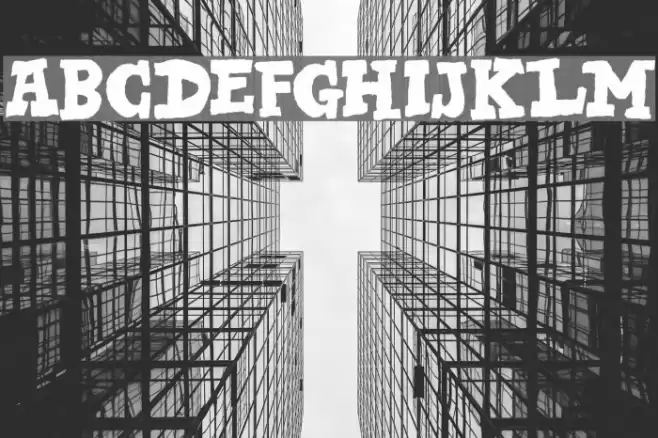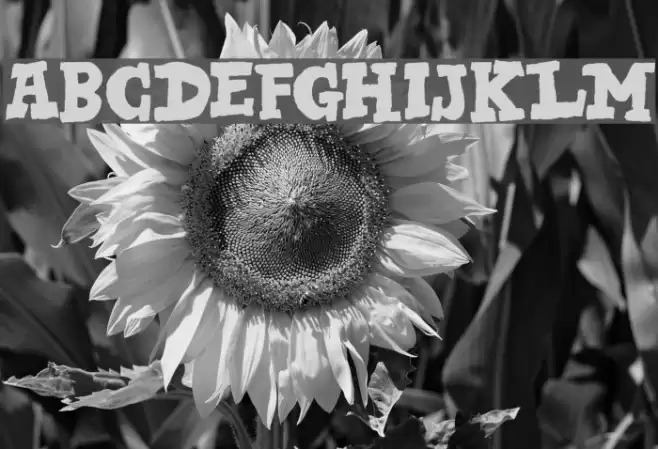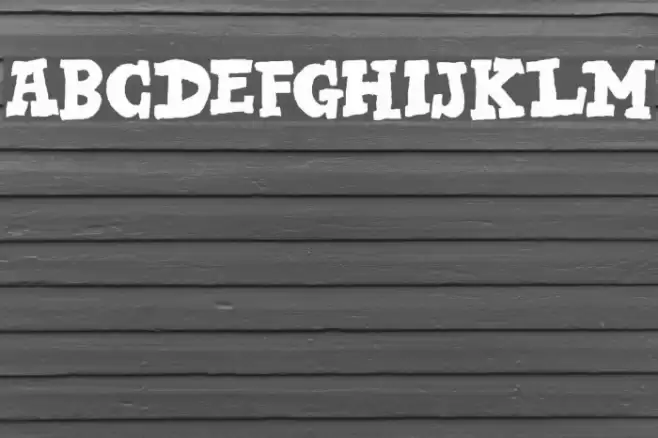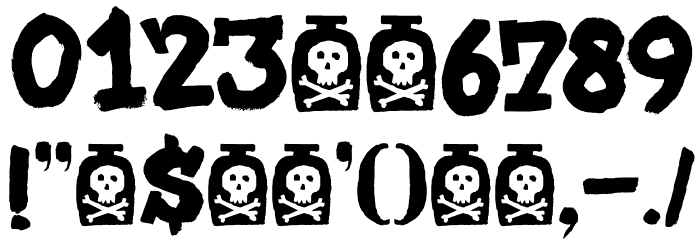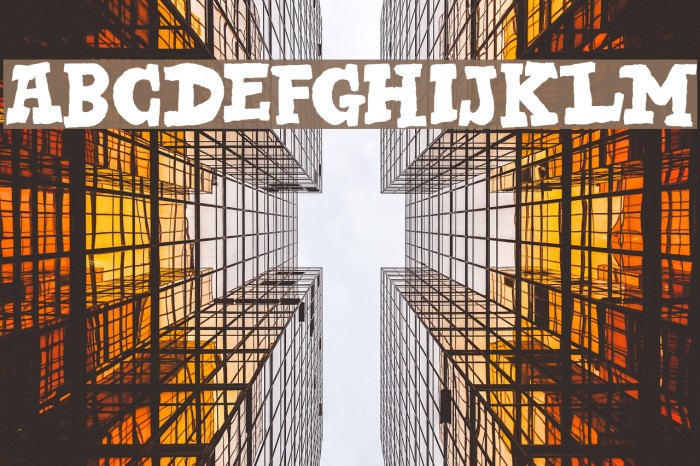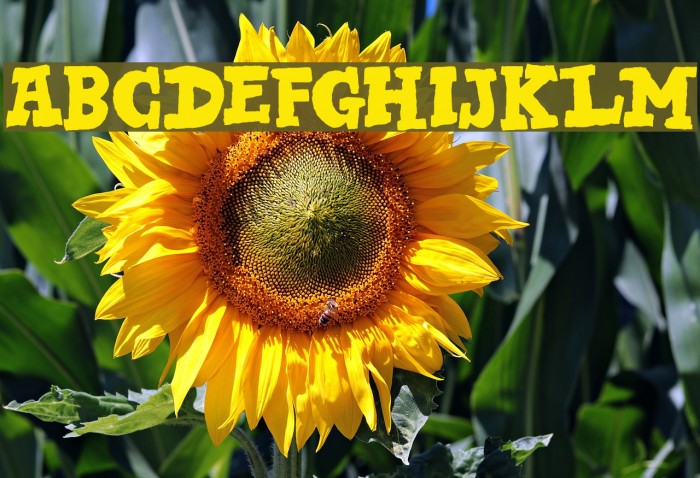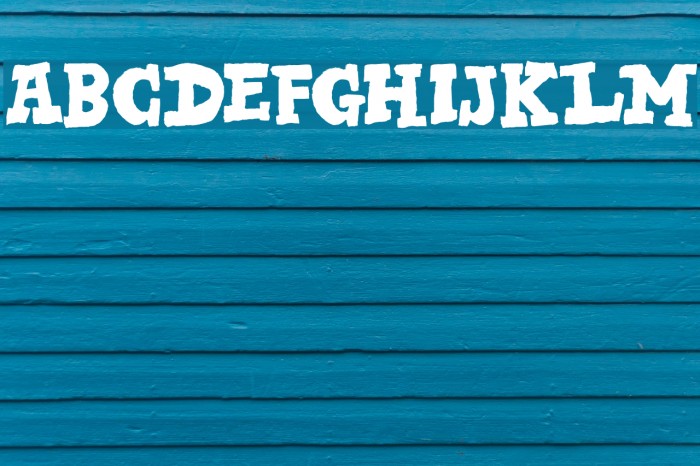
DK Bad Medicine Regular Font
DK Bad Medicine Regular Description
This font features a bold and rugged style with a distressed appearance, giving it a rebellious and edgy feel. The characters are heavily textured, resembling a hand-painted or stamped look, which adds to its unique and eye-catching design. The uppercase and lowercase letters maintain a consistent weight, while the numbers and special characters include distinctive elements like skulls and crossbones, enhancing its thematic appeal. This font is ideal for projects that require a dramatic and impactful visual statement.
A bold, distressed font with a rebellious and edgy style from Uncategorized fonts.
- Proposed Projects: Perfect for posters, album covers, Halloween-themed designs, or any project needing a bold, dramatic impact.